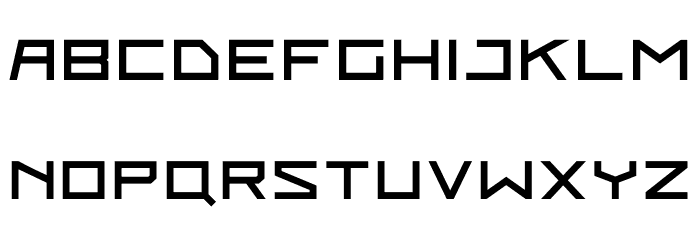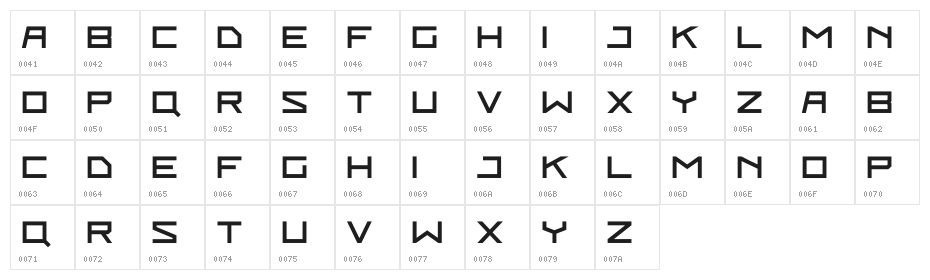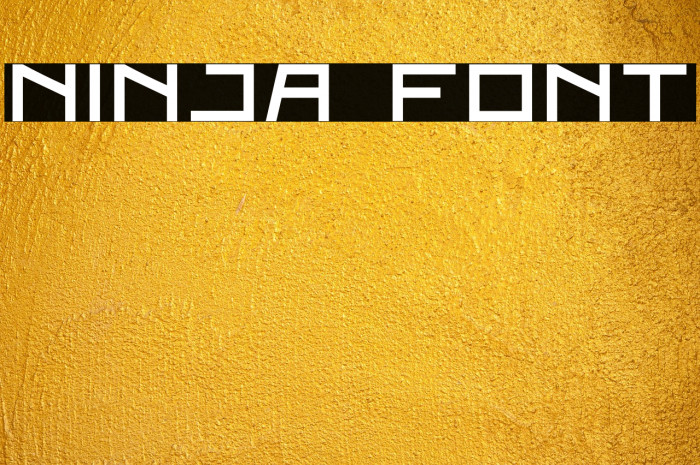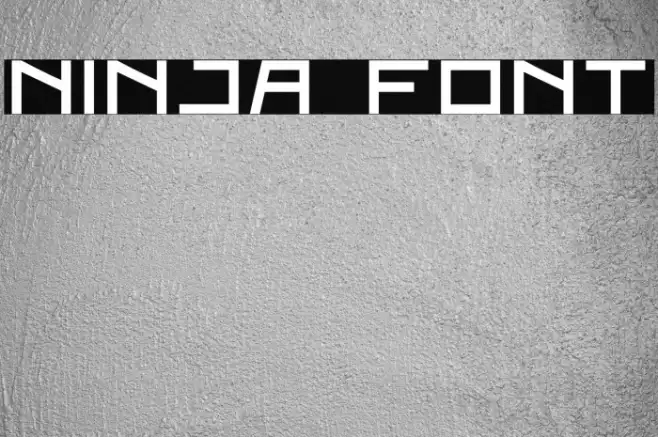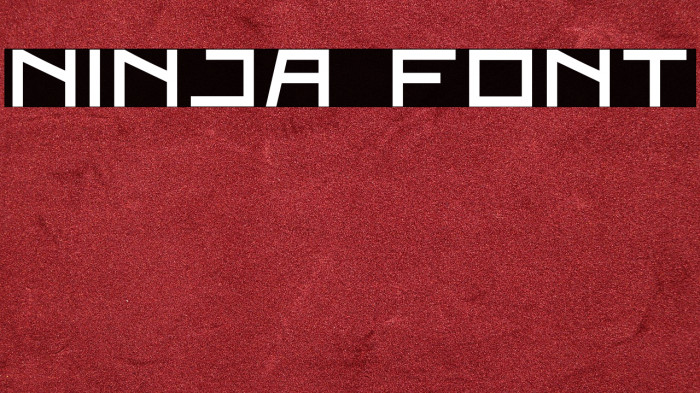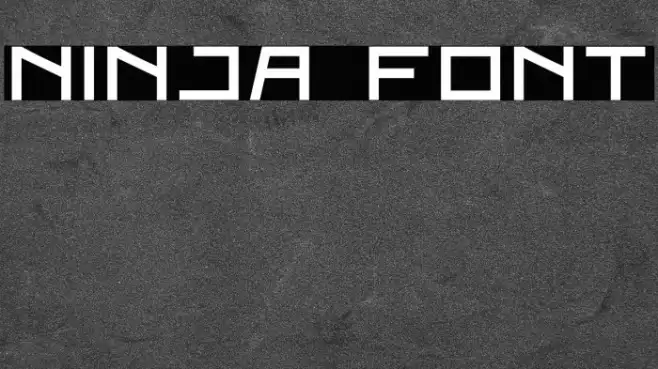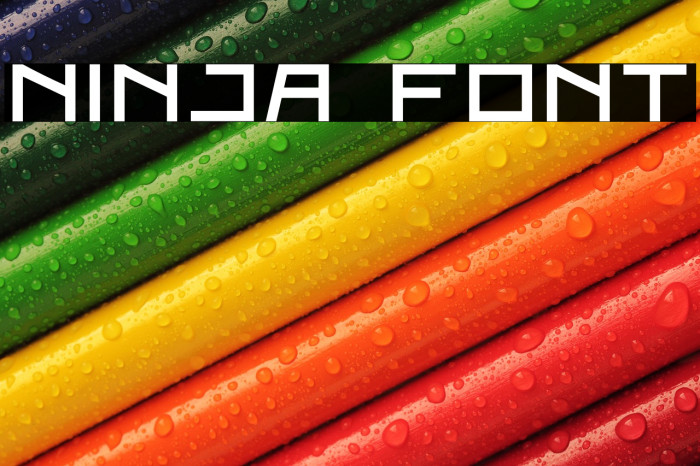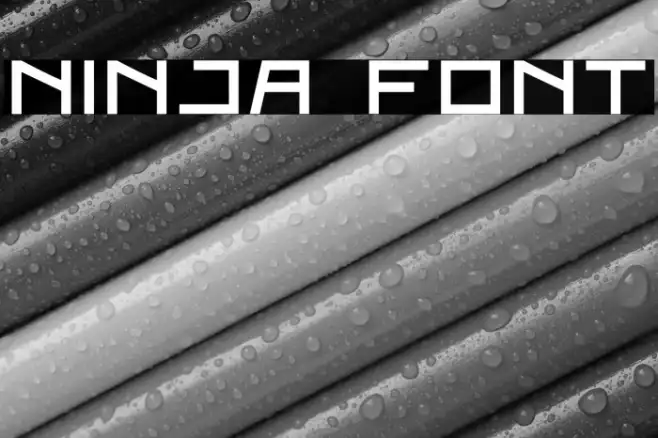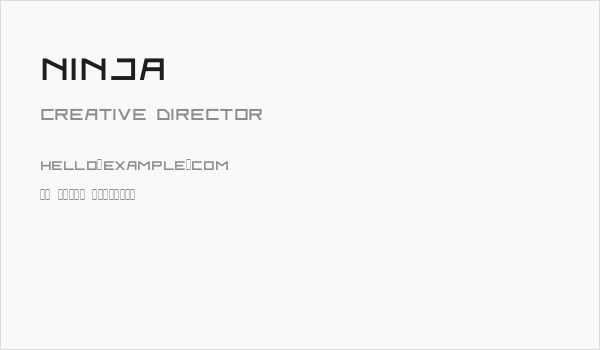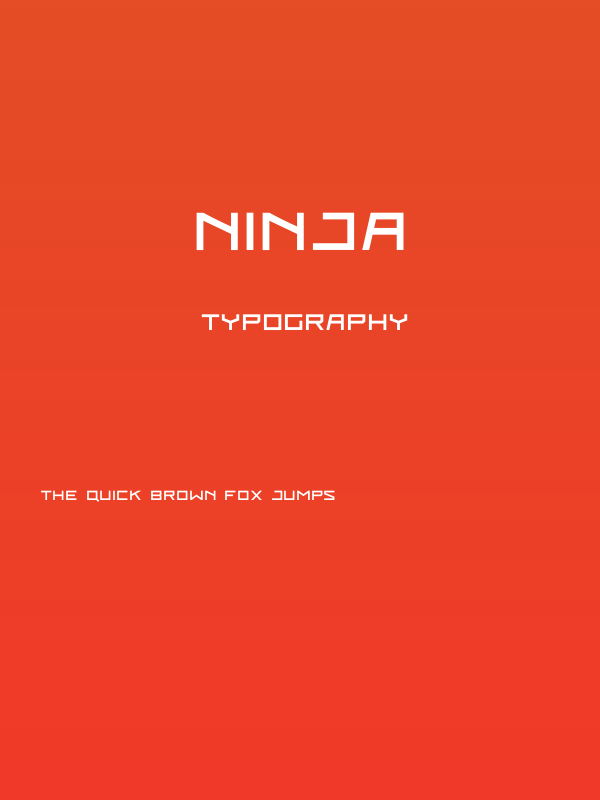
NINJA Font
NINJA Description
This font features a geometric and angular design, characterized by sharp edges and a futuristic appearance. The uppercase letters are uniform in height, with a consistent stroke width that gives a clean and modern look. The characters have a distinct, almost mechanical feel, with some letters incorporating unique cuts and angles that add to the font's distinctive style. The overall design is bold and impactful, making it suitable for attention-grabbing headlines or branding that requires a modern and edgy aesthetic.
| Proposed Projects | Ideal for technology branding, sci-fi movie posters, video game titles, and modern logos. |